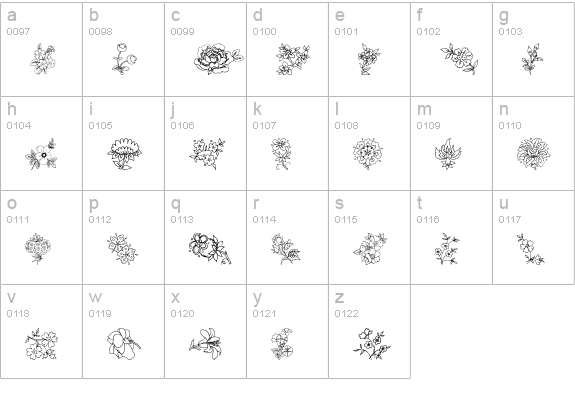
Traditional Floral Design II Font Details
Traditional Floral Design II font is a captivating and intricate typeface that adds a touch of elegance and sophistication to any design project. This font is perfect for creating stunning invitations, wedding stationery, logos, branding materials, and more. With its beautifully crafted floral elements and delicate details, Traditional Floral Design II font captures the essence of traditional floral design in a modern and timeless way. Every letter in Traditional Floral Design II font is meticulously designed with a meticulous attention to detail, resulting in a font that is visually stunning and aesthetically pleasing. The flowing curves and graceful lines of this font create a harmonious and balanced composition, making it a truly versatile choice for various design applications. What makes Traditional Floral Design II font even more appealing is that it is available for free. Yes, you read that right! This captivating font can be freely downloaded at FontsMarket.com. This means that you can enhance your creative projects without any additional cost, making it an excellent choice for designers, artists, and enthusiasts alike. Whether you are working on a personal project or a professional assignment, Traditional Floral Design II font is sure to make a lasting impression. Its timeless beauty and intricate details will add a touch of sophistication and elegance to any design. So why wait? Download Traditional Floral Design II font today and let your creativity blossom!